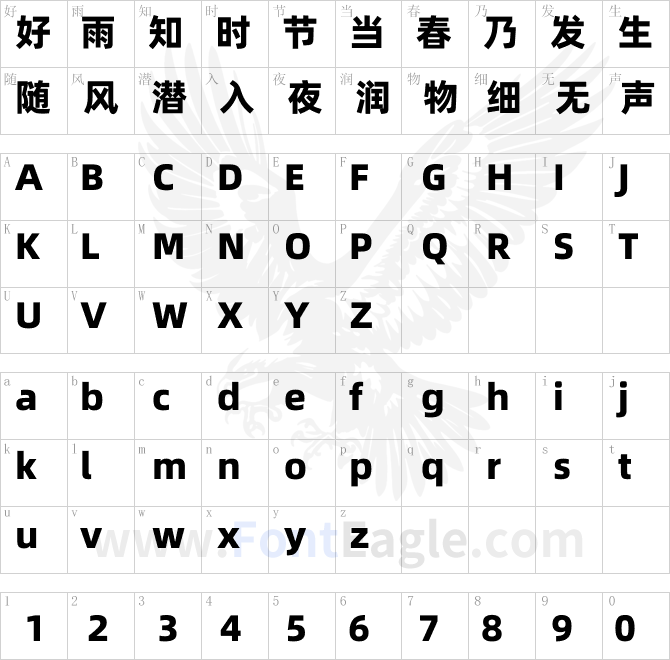
阿里巴巴普惠体-2-105-Heavy is a great font, widely used in graphic design, single-page menu design, poster design and other fields, and is deeply loved by designers.阿里巴巴普惠体-2-105-Heavy download.